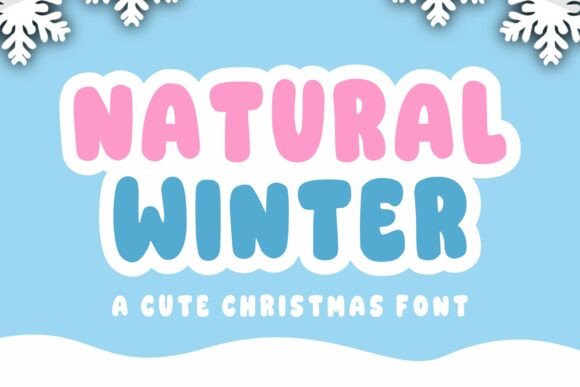
Natural Winter: A Versatile Christmas Font
When the holidays approach, the visual language of our projects shifts. We move away from stark minimalism toward warmth, nostalgia, and celebration. In this landscape, typography plays a pivotal role in setting the mood before a single image is viewed. Natural Winter enters this space not as a rigid template, but as a flexible tool designed to capture the essence of the season with a friendly, approachable character. It is more than just decorative text; it is a design asset that bridges the gap between playful creativity and professional presentation.
This font stands out because it balances the whimsical nature of holiday themes with enough legibility to remain functional. Whether you are designing a simple greeting card or a complex marketing campaign, the right typeface can elevate your concept from generic to memorable. Natural Winter offers a distinct personality that feels organic and inviting, making it an incredible asset to any creator's library.
Understanding the Design Philosophy
At its core, Natural Winter is defined by its "fun and cute" aesthetic, yet it avoids the pitfalls of being overly cartoonish or difficult to read. The letterforms are crafted with soft curves and gentle variations that mimic the organic feel of winter landscapesβthink of snowflakes forming or the rounded edges of frost on a windowpane. This design philosophy ensures that the font remains versatile across a wide range of contexts.
For designers who often struggle to find a balance between festive flair and readability, this typeface offers a solution. It does not scream for attention in a chaotic way; instead, it invites the viewer in with a warm smile. This friendly feel makes it incredibly suitable for projects where human connection is key. Unlike some display fonts that work only at large sizes, Natural Winter maintains its charm even when used for body copy in moderate amounts, provided the context supports a casual tone.
Perspectives for Beginners and Hobbyists
For those just starting their creative journey, selecting a font can be daunting. There is often a fear of choosing something that looks amateurish or clashes with the rest of the design. Natural Winter removes much of this anxiety. Its inherent cuteness provides a safety net; it is forgiving and naturally aligns with the expectations of holiday content.
- Simplicity: Beginners appreciate tools that require less tweaking. Because the font has a strong built-in character, users do not need advanced kerning skills to make it look good.
- Creative Confidence: Using a high-quality, pre-designed font like Natural Winter allows hobbyists to focus on layout and color rather than worrying about typography fundamentals.
- Personal Projects: From family newsletters to handmade gift tags, this font adds a professional polish to personal endeavors without requiring a subscription to expensive software suites.
A beginner might use Natural Winter to create a digital invitation for a neighborhood cookie exchange. The font immediately communicates the event's tone: cozy, fun, and community-focused. It helps the user achieve a result that feels curated rather than rushed.
Strategic Value for Professionals and Marketers
While beginners look for ease of use, professionals and marketers evaluate fonts based on brand alignment, conversion potential, and versatility. For a small business owner running a holiday sale, the choice of typeface directly impacts customer perception. Natural Winter offers a unique advantage here: it feels authentic. In an era where consumers crave genuine connections over polished corporate speak, a font that feels "natural" can build trust.
Marketers can leverage this font for email subject lines, social media graphics, and limited-time promotional banners. The friendly feel ensures that the message is received as helpful and inviting rather than aggressive. However, professionals must also consider the font's limitations. It is best suited for seasonal campaigns, lifestyle brands, or children's products. Using it for a formal financial report would be a mismatch, highlighting the importance of context.
Consider a boutique bakery launching a winter menu. By using Natural Winter for their Instagram stories and menu headers, they reinforce their brand identity as a warm, local spot. The font becomes part of the storytelling, suggesting that the pastries are homemade and filled with love. For these creators, the font is not just a visual element; it is a strategic asset that enhances the overall narrative.
Educational and Community Applications
Educators and community organizers have different priorities. They need materials that engage students or participants while remaining clear and accessible. Natural Winter fits well into lesson plans about winter traditions, holiday history, or seasonal art projects. Its legibility ensures that younger audiences can read instructions easily, while the style keeps them interested.
In a classroom setting, a teacher might use the font for a bulletin board display titled "Winter Wonders." The playful nature of the letters encourages interaction and makes the learning environment feel festive. Similarly, non-profit organizations hosting charity drives can use the font to soften the ask, making the call to action feel like a community invitation rather than a demand.
The flexibility of Natural Winter allows it to adapt to various educational formats, from printed worksheets to digital presentations. It serves as a bridge between serious learning objectives and the joy of the season, helping educators maintain engagement during a time when attention spans might waver.
Evaluating Long-Term Usefulness
One common concern for creators investing in new assets is longevity. Is this font a one-season wonder? While Natural Winter is undeniably tied to the winter theme, its underlying structure suggests broader utility. The "natural" aspect of its design means it can be repurposed for spring gardening guides, autumn harvest festivals, or any project requiring a hand-crafted, organic feel.
Professionals building a robust font library should view Natural Winter as a foundational piece for seasonal collections. It pairs exceptionally well with clean sans-serifs for contrast, creating dynamic layouts that stand out. By adding it to your collection, you ensure that whenever a project requires a touch of warmth and whimsy, you have a reliable tool ready to go.
Furthermore, the cost-effectiveness of such a versatile font cannot be overstated. Instead of purchasing multiple specialized fonts for different holiday angles, a single, high-quality typeface like Natural Winter can cover a multitude of needs. It reduces decision fatigue and streamlines the design process, allowing creators to spend more time on content and less on searching for the perfect lettering.
Matching the Font to Your Goals
Deciding whether Natural Winter is the right choice depends heavily on your specific project goals. If you are aiming for a sleek, futuristic, or strictly corporate look, this font may not be the ideal fit. However, if your objective is to evoke emotion, celebrate tradition, or connect with an audience on a human level, it is an exceptional option.
Ask yourself what story you want your design to tell. Does it need to be authoritative, or does it need to be welcoming? Natural Winter excels at the latter. It is a tool for those who understand that design is not just about aesthetics, but about communication. Whether you are a freelancer pitching a proposal, a blogger writing a holiday guide, or a parent making a scrapbook, this font has the potential to elevate your creation.
Ultimately, the value of a font lies in how effectively it serves its purpose. Natural Winter serves the purpose of bringing joy and clarity to winter-themed communications. By integrating it into your workflow, you open up new possibilities for expression, ensuring that your creative ideas not only stand out but resonate deeply with your audience.